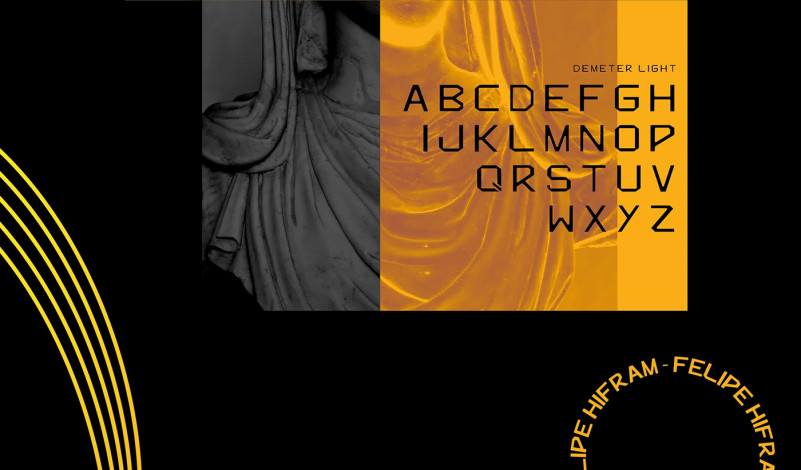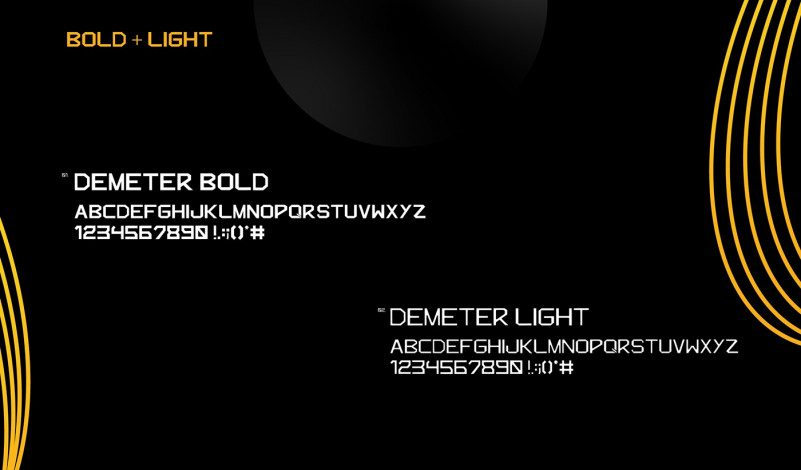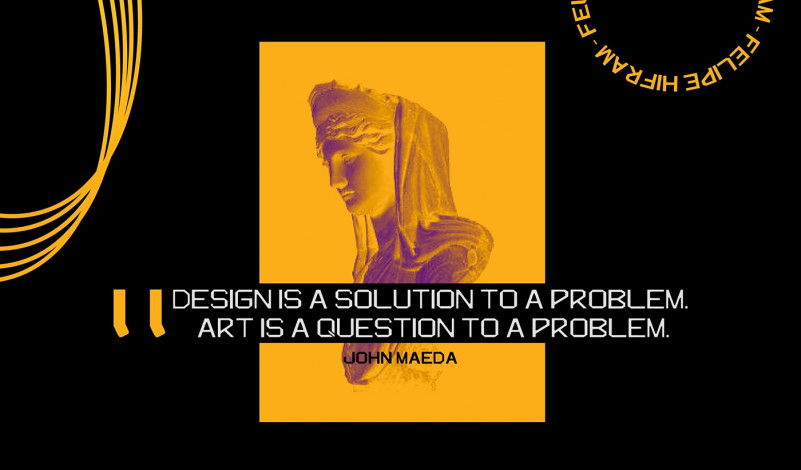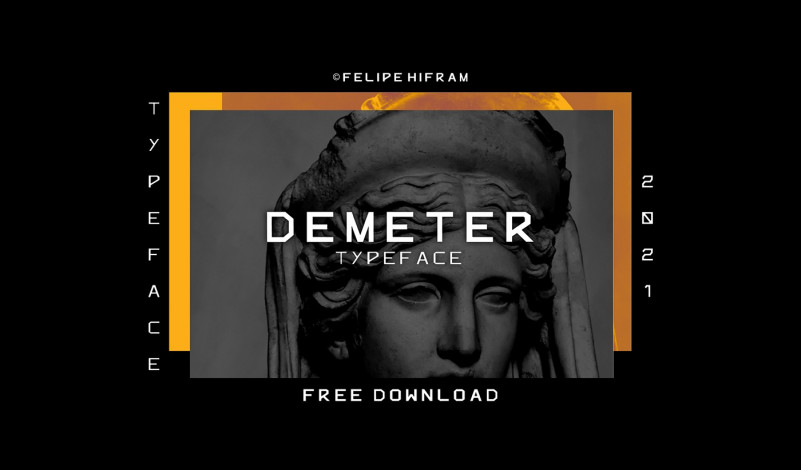
Demeter Display Font
This is a bold and futuristic looking display font manufactured by Felipe Hifram. One of kind techno font that versatile to apply in various design styles. This font is suitable for designs such as t-shirts, sportswear, logos, advertisements, clothing, and more.